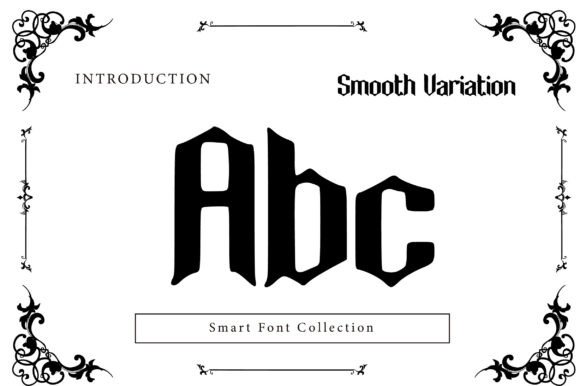
Introduction to Smooth Variation Font Font
Fonts play a crucial role in design, and the Smooth Variation Font font is a typeface that brings both character and versatility to any project. Whether you’re working on a branding project, a website, or a print design, the Smooth Variation Font font offers a unique style that can elevate your work.
Smooth Variation typeface is a bold blackletter-inspired display font with cleaner, smoother cuts and a modern edge.
It keeps the strong Gothic / Old English personality, but with simplified shapes that feel more polished and readableβperfect for both vintage and contemporary designs This Smooth Variation typeface features elongated, sharp strokes and a simplified geometry that echoes the look of modern automotive or high-tech athletic branding.
Key Features of Smooth Variation Font Font
Why Choose Smooth Variation Font Font?
The Smooth Variation Font font is more than just a typeface β it’s a design tool that helps you communicate your message with style and clarity. Its unique character set and versatile design make it suitable for a wide range of applications, from elegant invitations to bold headlines.
With its carefully crafted letterforms and balanced proportions, the Smooth Variation Font font ensures readability and visual appeal across all mediums.
What makes Smooth Variation Font font special?
The Smooth Variation Font font stands out with its unique design, exceptional readability, and versatility across various design applications.